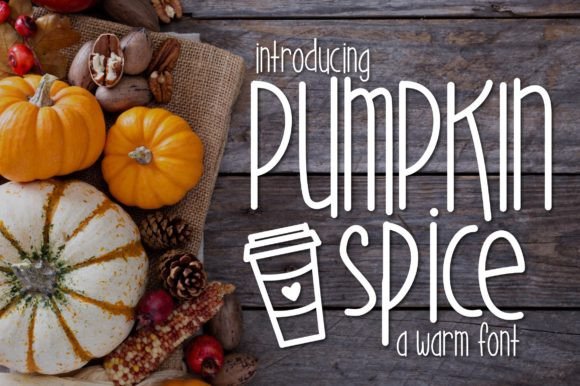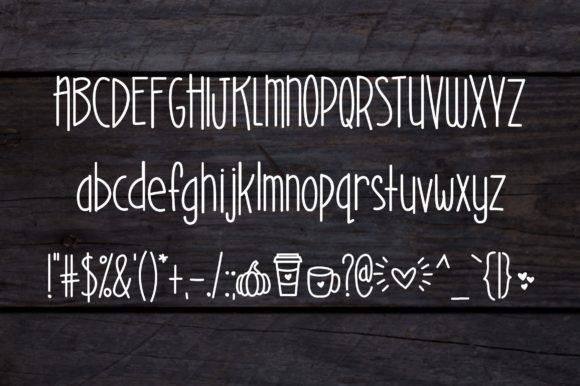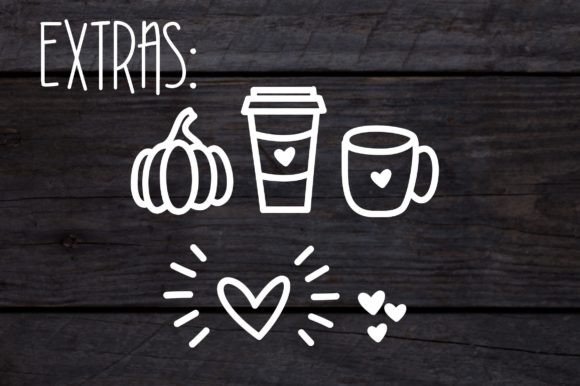
Pumpkin Spice Font
About Pumpkin Spice Font
Indulge in the delightful world of the Pumpkin Spice font, where autumnal charm meets creative expression. Infused with the essence of pumpkin spice and adorned with adorable pumpkin and coffee doodles, this font is a perfect companion for all your fall-themed projects. Whether you’re capturing the warmth of Thanksgiving memories in a scrapbook or designing a festive fall flyer, the Pumpkin Spice font adds just the right amount of flavor to elevate your creations.
The Pumpkin Spice font captures the cozy and comforting vibes of the fall season. Its whimsical letters and charming doodles transport you to a world of crisp leaves, warm beverages, and the sweet aroma of pumpkin spice. It’s not just a font; it’s an experience that brings the essence of autumn into your designs.
The inclusion of darling pumpkin and coffee doodles adds a playful touch to the Pumpkin Spice font. These little elements infuse a sense of joy and festivity, making it a versatile choice for a wide range of autumn-themed projects. Whether you’re planning to create greeting cards, invitations, social media posts, or decorative elements for your home, this font is the perfect ingredient to spice up your designs.
Embrace your pumpkin spice cravings and let this font be the secret ingredient that enhances your projects. Its warm and inviting aesthetic is designed to evoke the spirit of fall, making your designs feel cozy and inviting.
In summary, the Pumpkin Spice font is more than just a typographic choice; it’s a delightful journey into the heart of autumn. So, go ahead and infuse your projects with the warmth and flavor of pumpkin spice – your designs will undoubtedly be all the better for it!